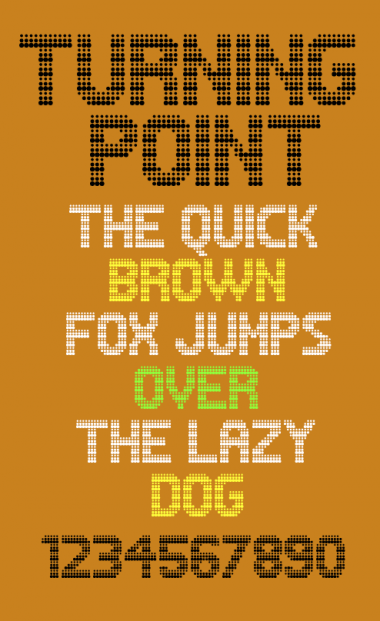
Turning Point
This is loosely inspired by some fonts used on indicator boards. Made of three different dot-bricks. Check out the example, if you like it, give it a good rating!